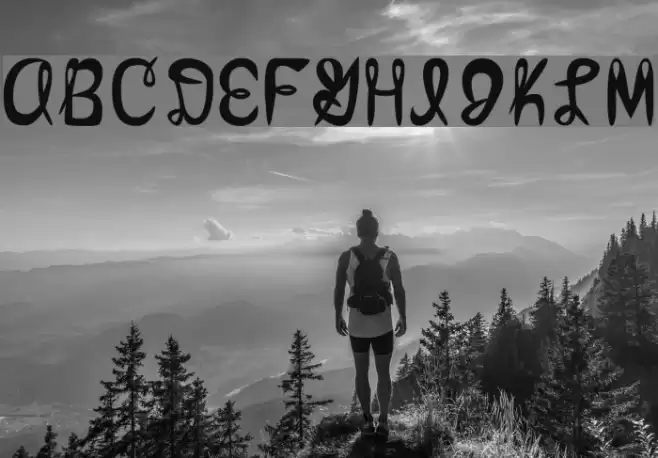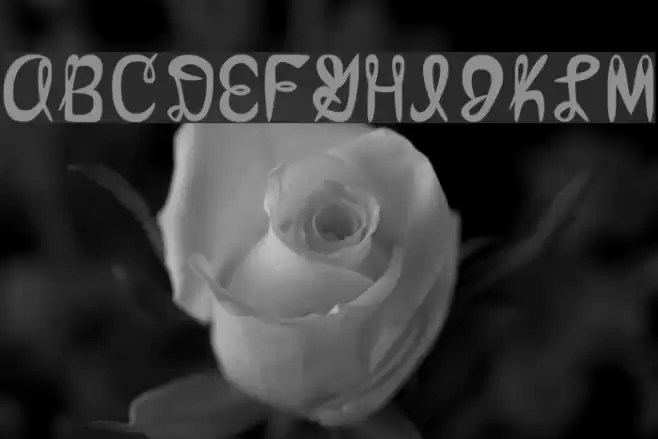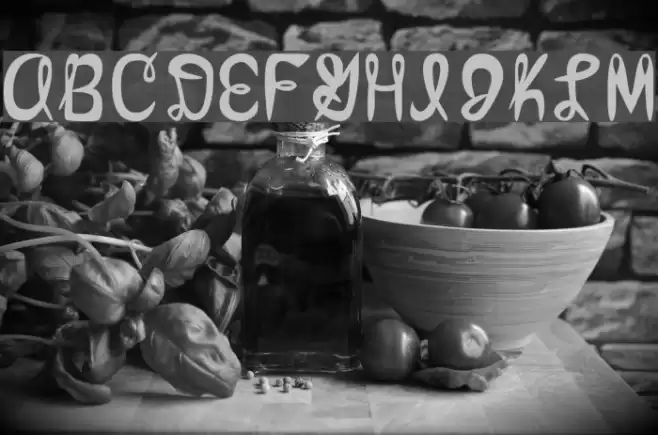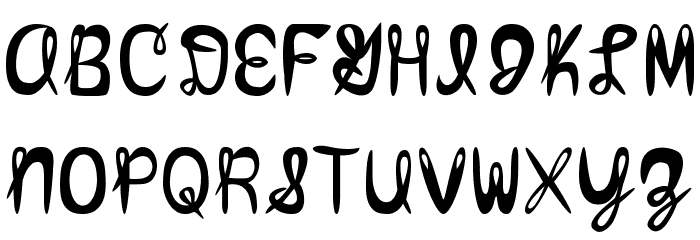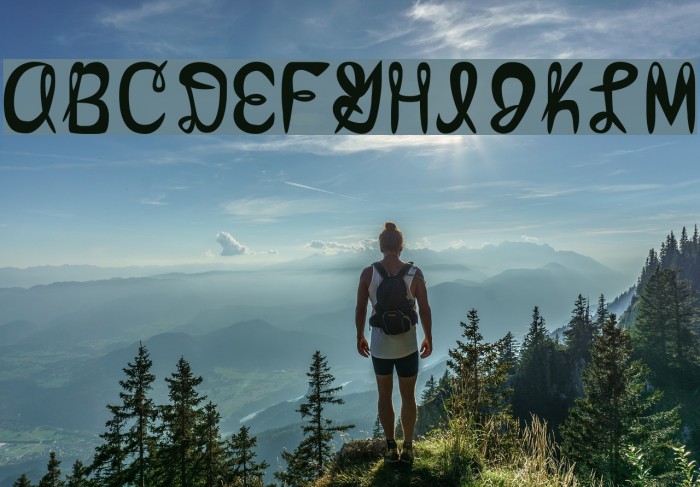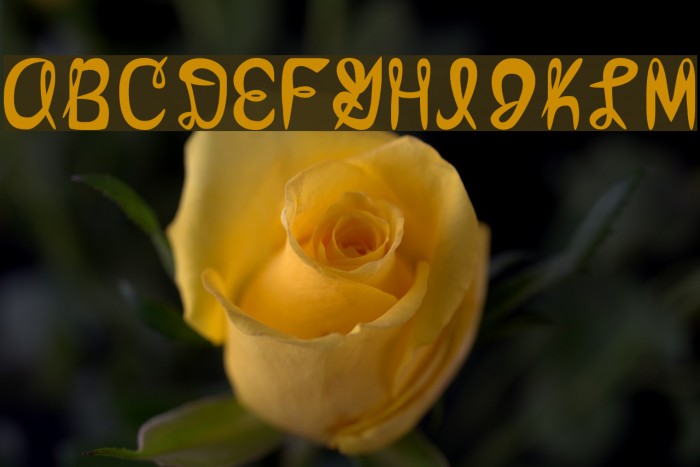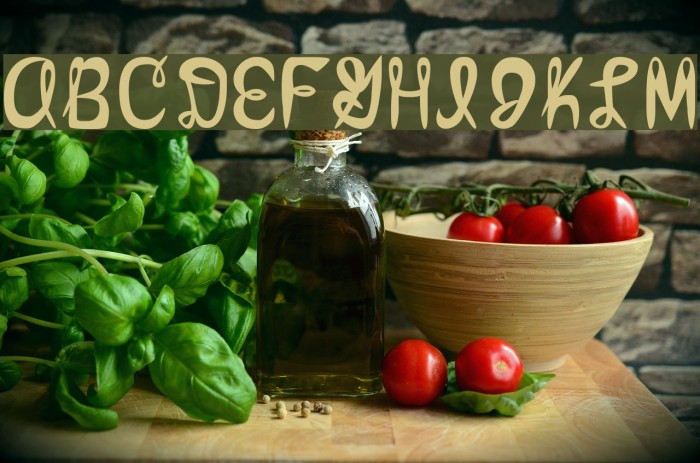
amixmuttRegular Font
amixmuttRegular Description
This font features a playful and whimsical design with a unique blend of bold and curvy strokes. Each character has a distinct personality, with exaggerated loops and swirls that add a sense of movement and energy. The uppercase letters are particularly expressive, with some characters incorporating unexpected twists and turns. The lowercase letters maintain a consistent style, complementing the uppercase with their own flair. The numbers and special characters follow the same lively aesthetic, making the font suitable for creative and artistic projects.
A playful and whimsical font with bold, curvy strokes and expressive characters from Uncategorized fonts.
- Proposed Projects: Ideal for children's book covers, playful branding, creative posters, and artistic invitations.
- Overall Style: Playful